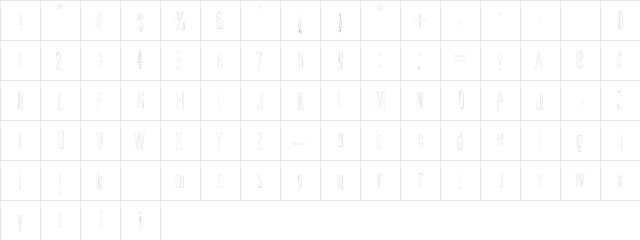
Fury Open
Design Context for Fury Typeface
Fury offers clean, dependable letterforms without strong stylistic allegiance, making it a practical choice for designers who need flexibility.